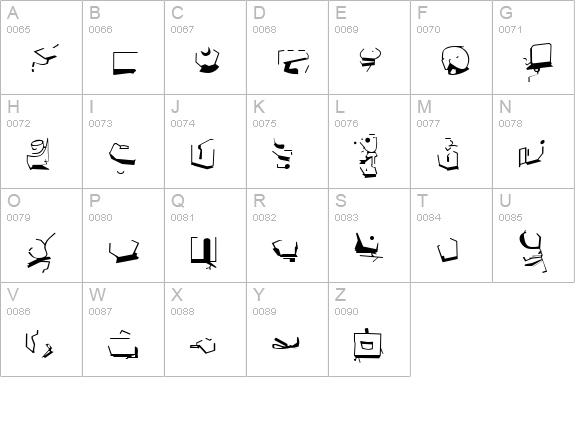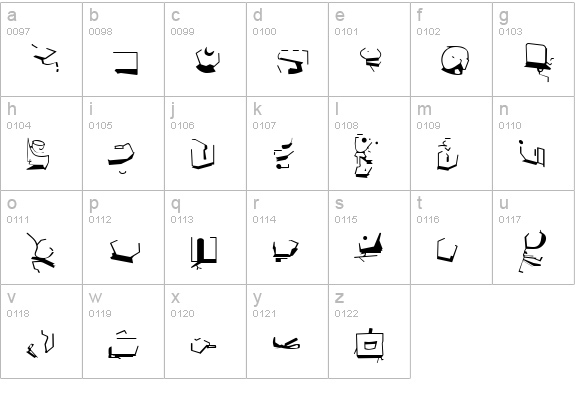
Bajoran Ancient - ST semi canon based Font Details
Bajoran Ancient is a mystical and enigmatic font inspired by the ancient traditions and culture of the Bajoran people in the Star Trek universe. This semi-canon based font exudes a sense of history and spirituality, making it perfect for projects related to science fiction, fantasy, or anything that requires a touch of the otherworldly. With its intricate and unique glyphs, Bajoran Ancient captures the essence of a civilization steeped in lore and tradition. Each character is meticulously crafted to reflect the beauty and complexity of the Bajoran language, making it a truly captivating font to work with. The best part is that Bajoran Ancient is available for free download at FontsMarket.com. Now you can easily incorporate this fascinating font into your designs and bring a touch of the mystical Bajoran culture to your projects. Embrace the power and history of the Bajoran people with Bajoran Ancient font today!